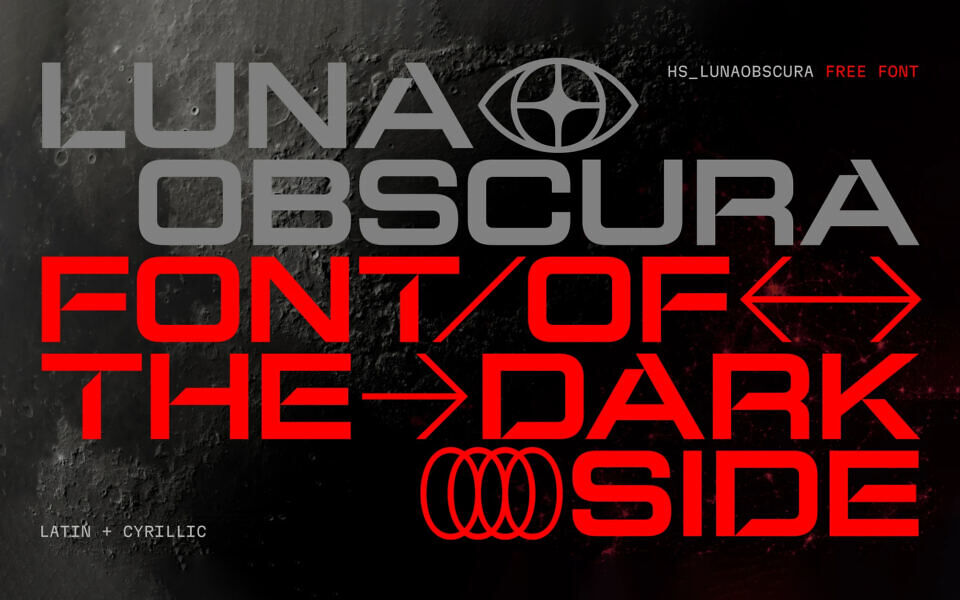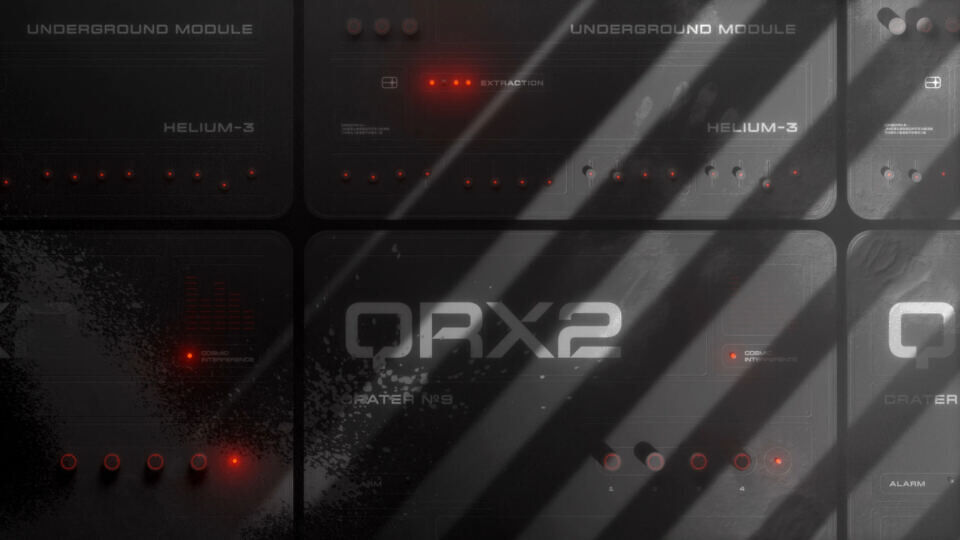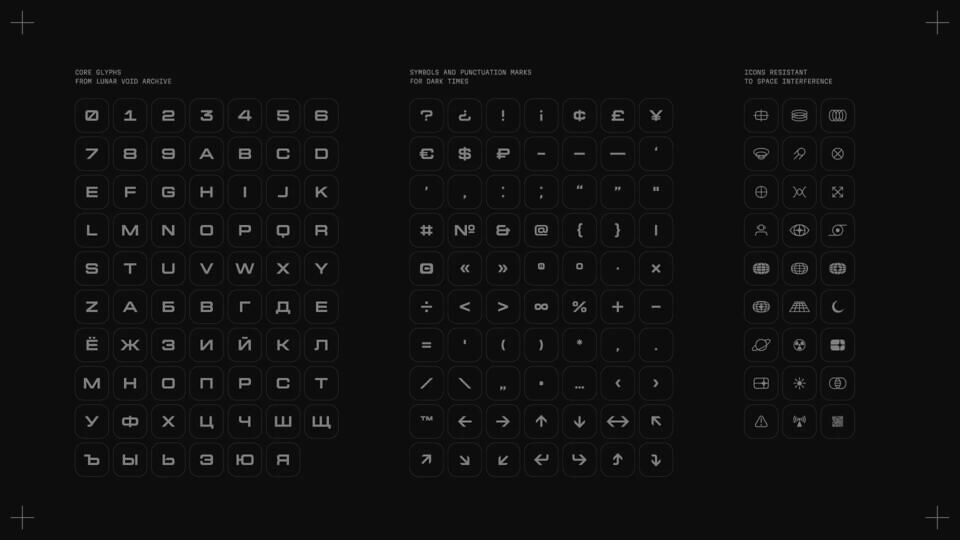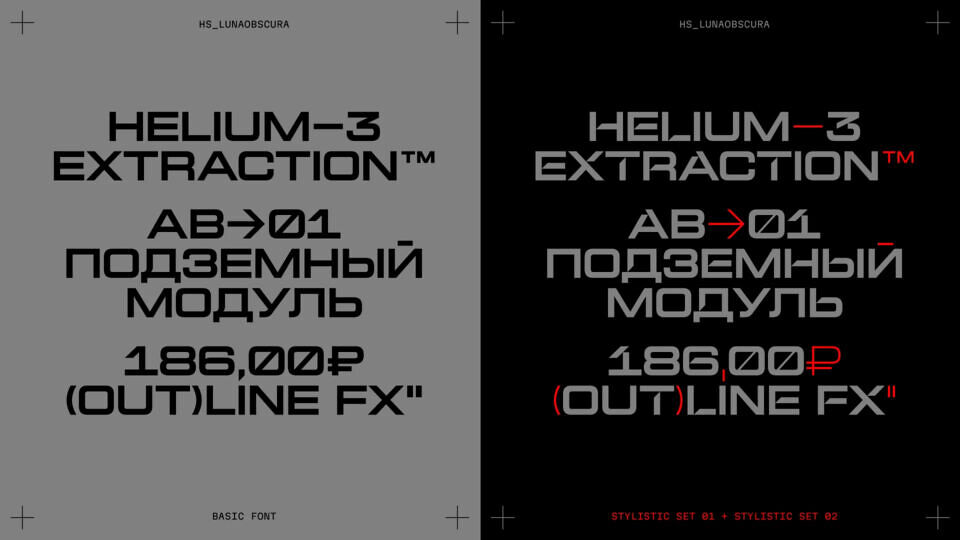
LunaObscura Font
LunaObscura is a futuristic display font designed by Headspace Agency, inspired by a fictional “dark side of the Moon” setting. It features a sci-fi, technical aesthetic with experimental glyphs, symbols, and interface-style elements, making it ideal for cyberpunk, space, and UI-themed designs.
The font supports both Latin and Cyrillic characters, includes stylistic sets, and offers unique icons. Released under the SIL Open Font License, it’s free to use and crafted to evoke high-tech environments, control panels, and atmospheric sci-fi visuals.